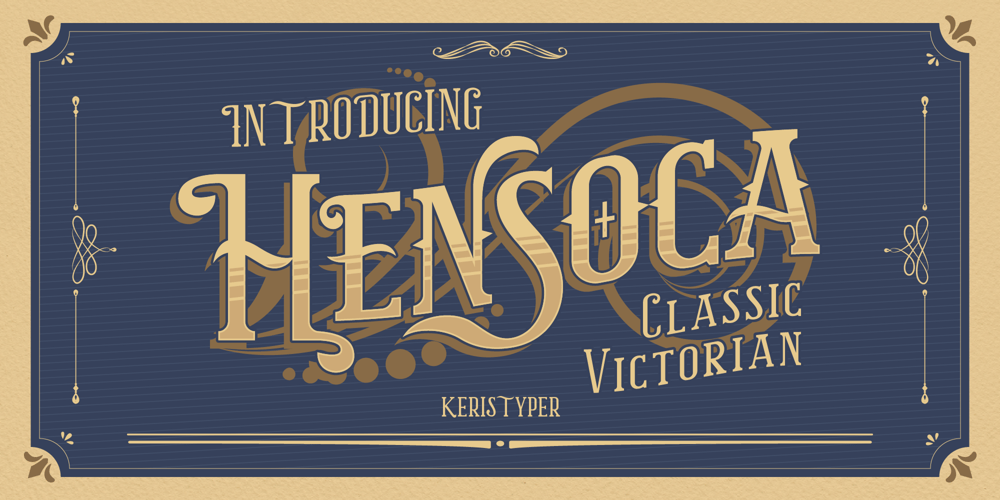
Hensoca Font Family was designed by Tezar Tantular and published by Keristyper Studio. Hensoca contains 1 styles and family package options. Hensoca is a typeface that is inspired by vintage victorian signs and letterhead. This font is good for logo design, Social media, Movie Titles, Books Titles, short text even long text letters, and good for your secondary text font with sans or serif.**Featured:*** Standard Uppercase & Lowercase* Numeral & Punctuation* Multilingual : ä ö ü Ä Ö Ü ß ¿ ¡* Alternate & Ligature* PUA encodedWe recommend programs that support the OpenType feature and the Glyphs panel such as Adobe applications or Corel Draw. so you can use all the variations of the glyphs.Hope you enjoy our fonts!